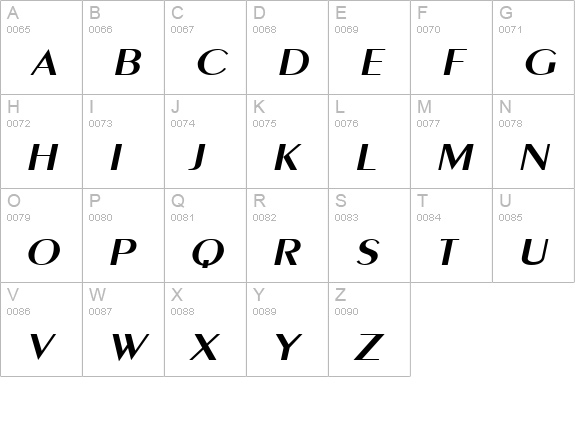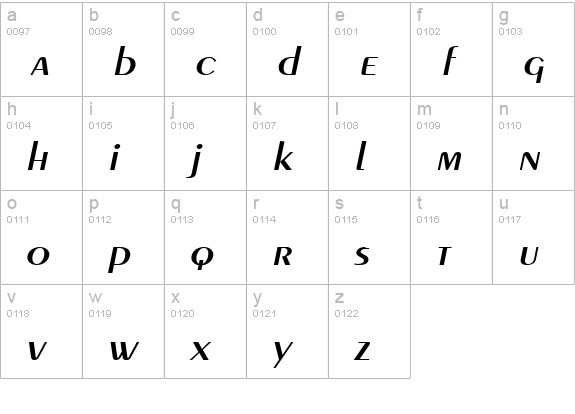
Pare Wide Italic Font Details
Pare Wide Italic is a distinctive, extended-width, italic variant in the Pare typeface family \xE2\x80\x94 well suited to design and typography projects.
Pare Wide Italic font is a stunning typeface designed to captivate and elevate any design project. This elegant font features a wide and sleek appearance, with a touch of sophistication that adds a modern and refined edge to your creative endeavors. Its distinctive italics lend a sense of dynamic movement, making it perfect for headlines, titles, and emphasis. What sets Pare Wide Italic font apart is its ability to effortlessly blend versatility and style. Whether you're working on a logo, website, or print materials, this font will seamlessly adapt to your vision, enhancing the overall aesthetic and impact of your design. Its clean lines and balanced proportions give it a timeless appeal, ensuring that your work will stand the test of time. But what makes this font even more appealing is that it is free to download at FontsMarket.com. Yes, you read that right - you can enjoy the beauty and functionality of Pare Wide Italic font without spending a dime. FontsMarket.com offers a vast collection of high-quality fonts, and Pare Wide Italic is just one of the many gems you can find on their platform. So why wait? Elevate your designs with the captivating allure of Pare Wide Italic font. Download it for free at FontsMarket.com and unleash your creativity with this versatile and stylish typeface.